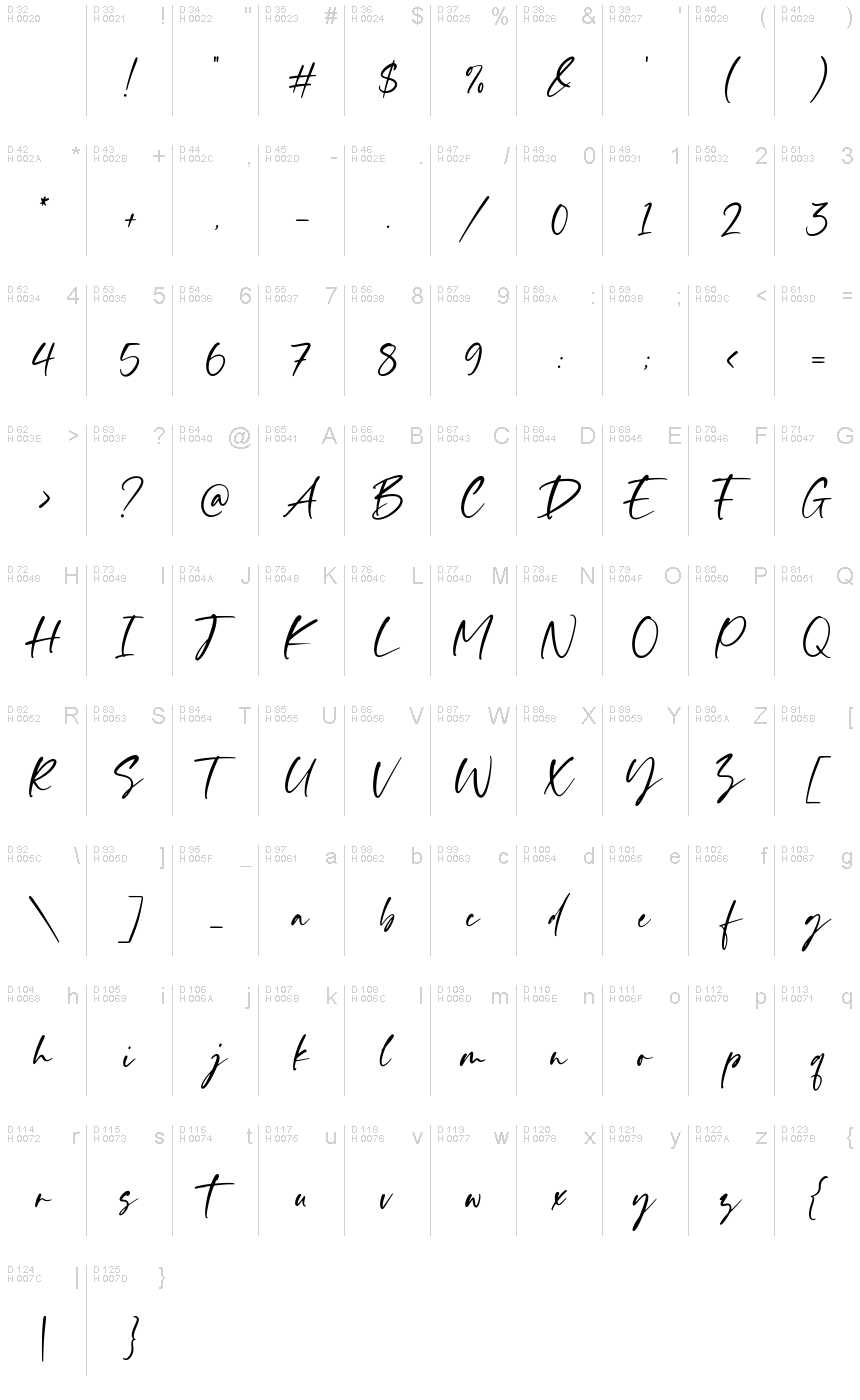
Smooth Destiny
Smooth Destiny, designed by Timur Type, is a font that captures the essence of personal touch with its handwritten style. It exudes charm and elegance through its fluid strokes and gentle curves, reminiscent of a timeless calligraphy piece. Each letter in Smooth Destiny flows into the next with an effortless grace, making it not only pleasing to the eye but also imbued with an intimate and bespoke feel.
This font lends itself beautifully to occasions that call for a touch of sophistication and warmth. Whether it's wedding invitations, personalized stationery, or branding for boutique businesses, Smooth Destiny adds a layer of finesse that can elevate any design project. Its aesthetic appeal is versatile enough to enhance the emotional impact of greeting cards or add character to book covers where a human touch is desired.